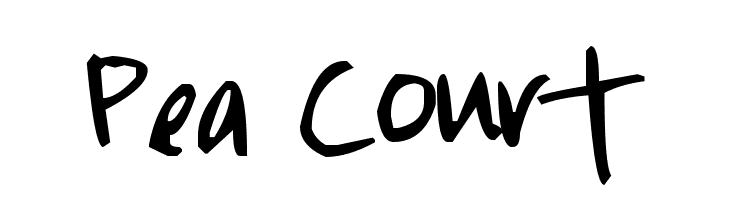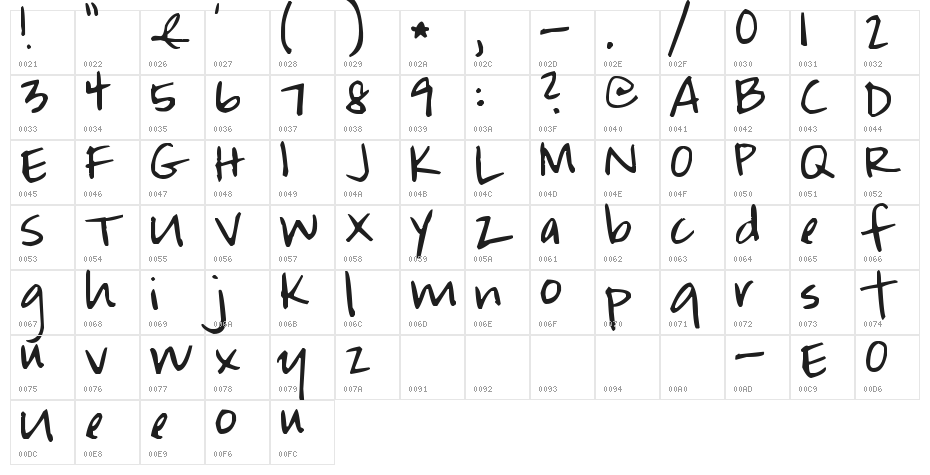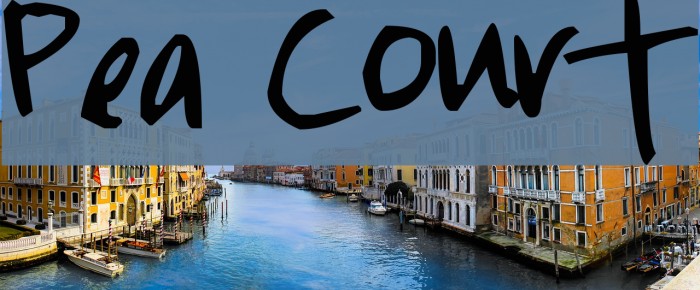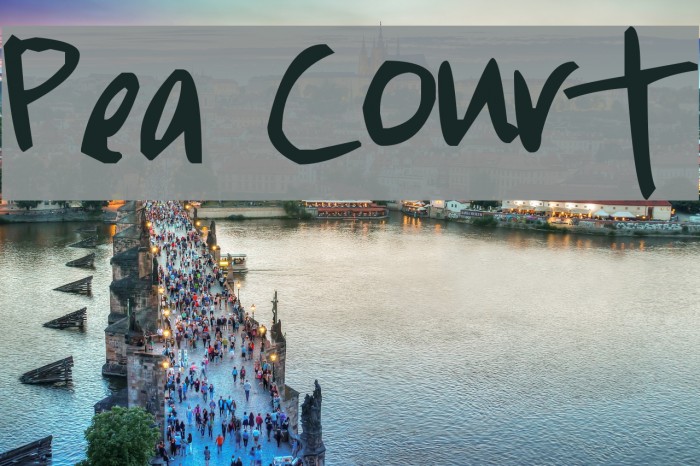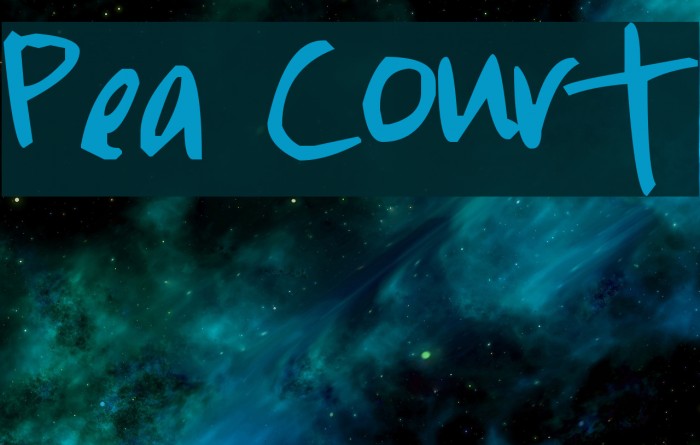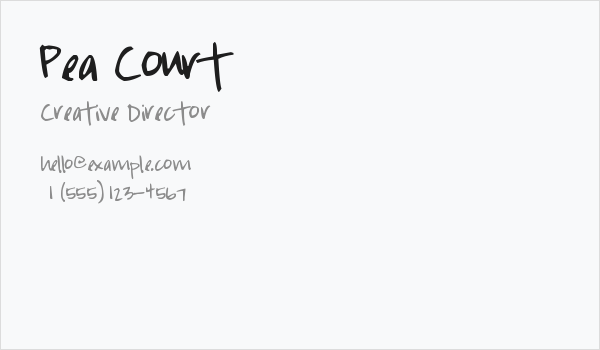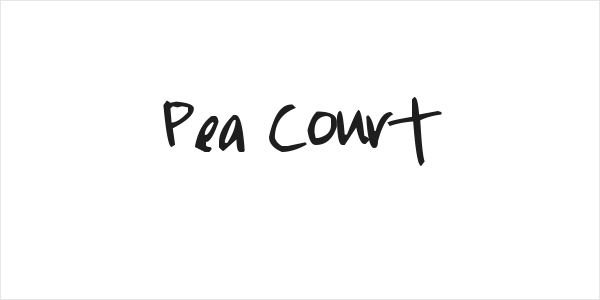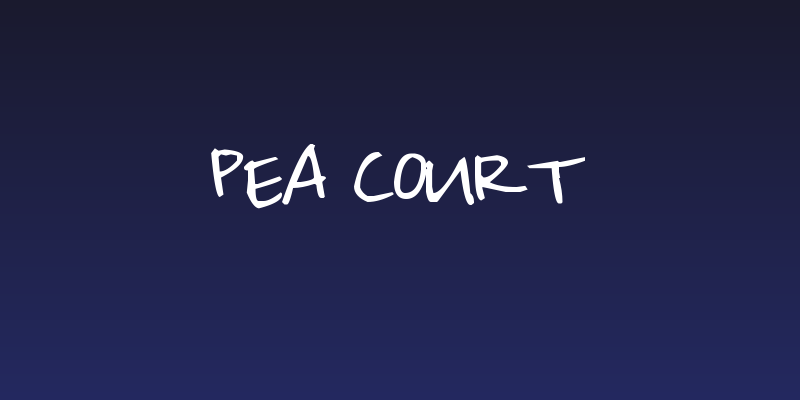
Pea Court Font
Pea Court Description
This font exudes a casual, handwritten style, characterized by its playful and informal appearance. The letters are slightly slanted, giving a dynamic and lively feel. The strokes are uneven, mimicking the natural flow of handwriting, which adds a personal touch. The uppercase and lowercase letters maintain a consistent style, with rounded edges and a slightly irregular baseline, enhancing its approachable and friendly vibe. The numerals and special characters follow the same handwritten aesthetic, making it versatile for various informal applications.
| Use Case | Logos, Greeting Cards, Informal Invitations |
| Proposed Projects | Ideal for personal notes, greeting cards, informal invitations, and playful branding projects. |